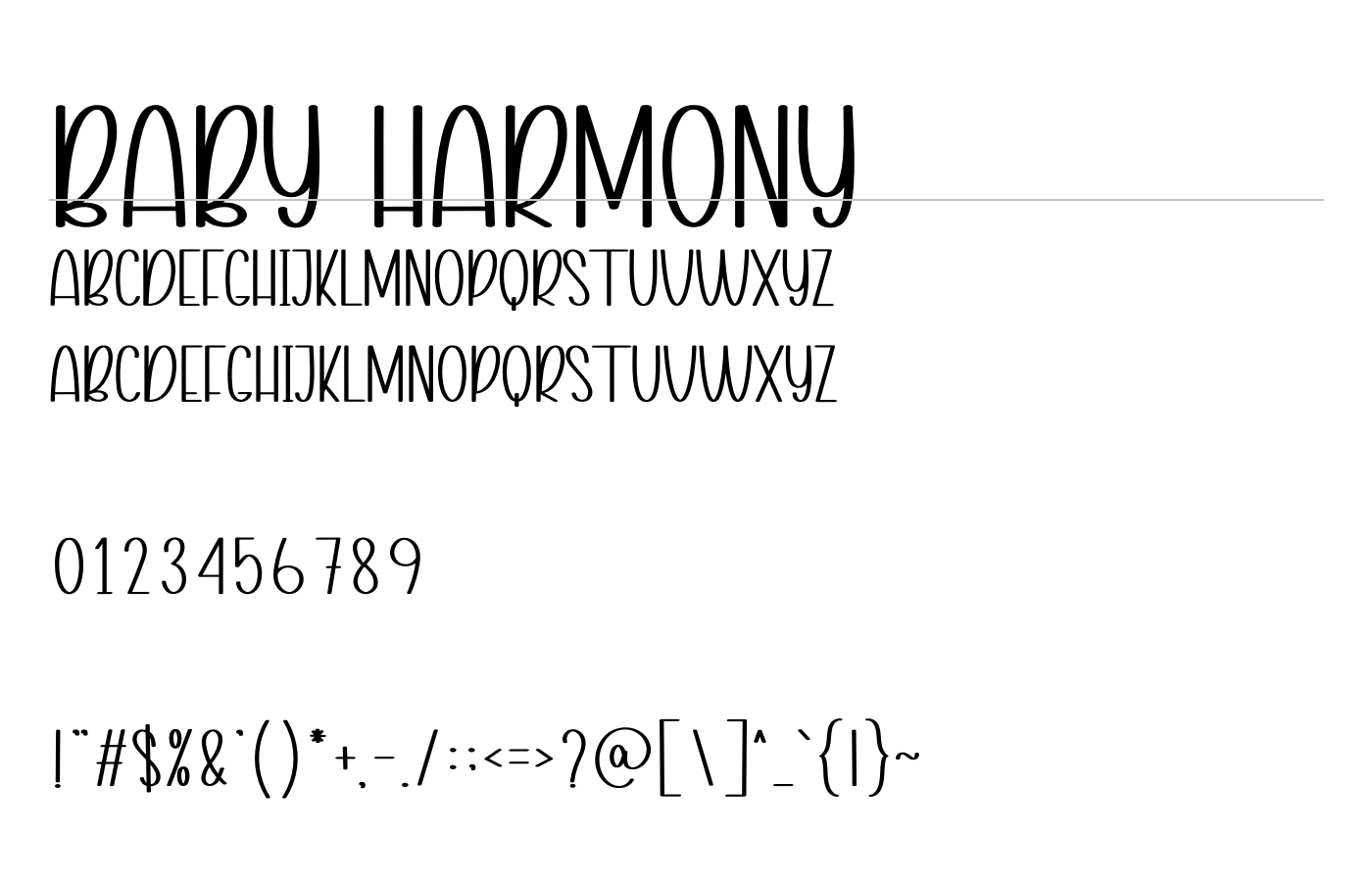
Baby HARMONY is a playful, narrow sans serif font with a tall x-height and casual, hand-drawn feel. Its slender, slightly irregular strokes give it a friendly, approachable vibe perfect for children's products, informal branding, and whimsical designs. This font works well for headlines, logos, and creative projects where a joyful, lively personality is desired.
Baby HARMONY Font